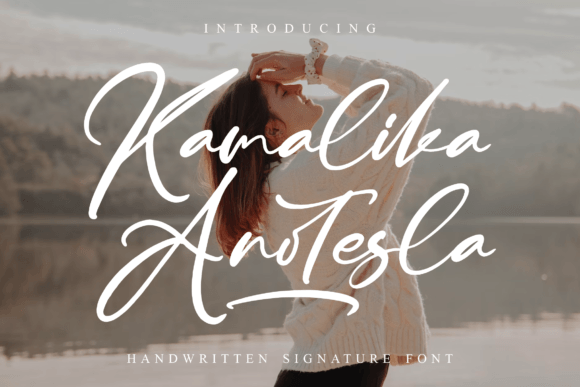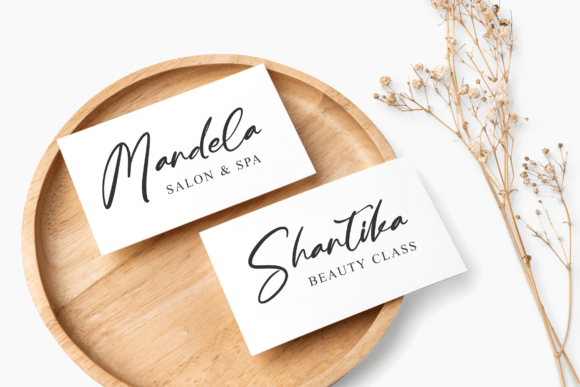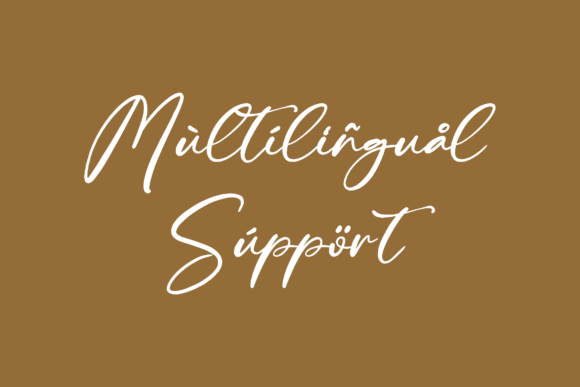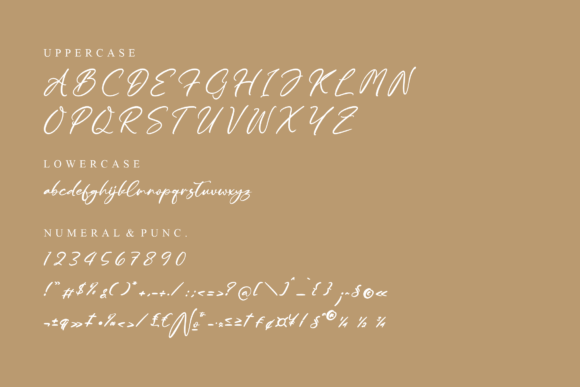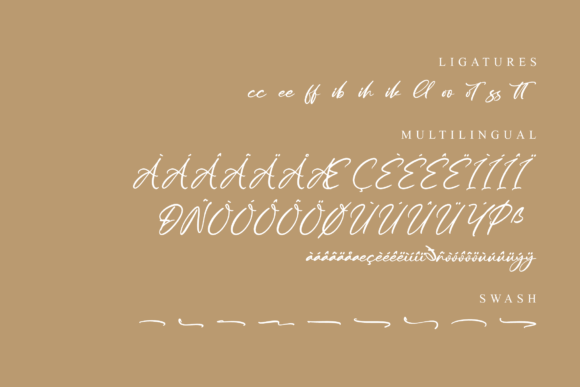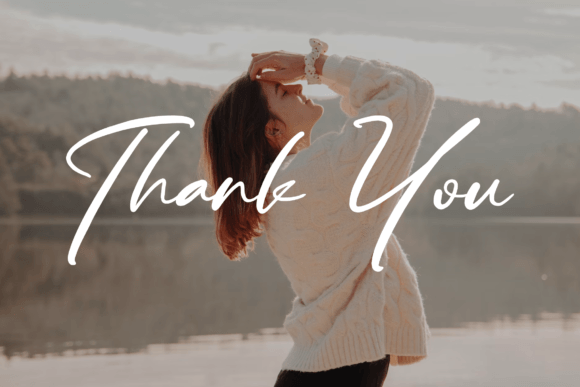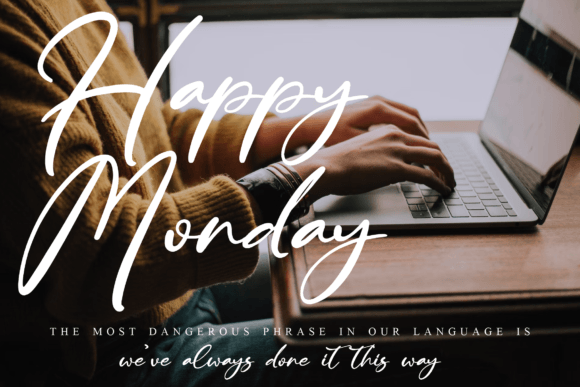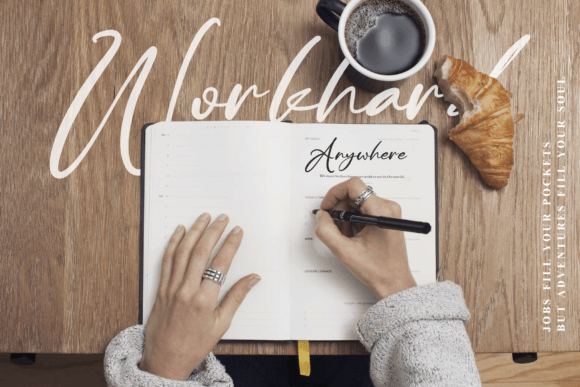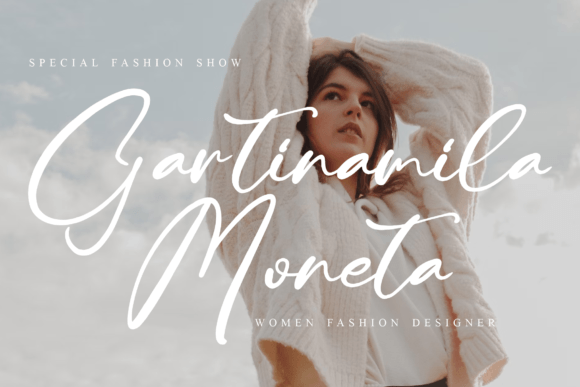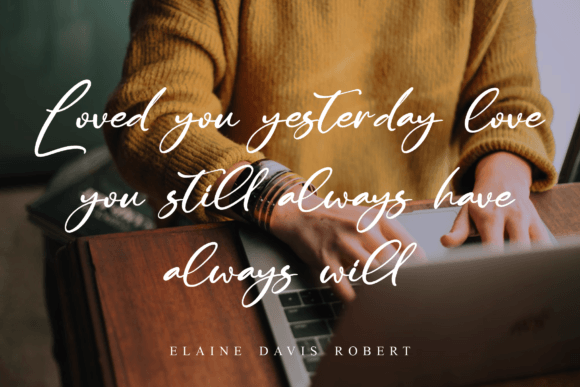
Kamalika Anotesla Font
About Kamalika Anotesla Font
Kamalika Anotesla Font download is a beautifully designed handwritten signature font that adds a graceful and personal touch to your design work. With its fluid strokes and sophisticated character, it’s ideal for creatives seeking a refined yet approachable aesthetic.
Whether you’re designing a logo or creating branded merchandise, this font brings elegance and originality to every piece.
A Stylish Signature for Every Project
Kamalika Anotesla combines a modern script flow with a classic handwritten signature look. The result is a versatile typeface that adapts to both minimalist and decorative projects with ease.
Perfect for:
• Branding and logo design
• Wedding and event invitations
• Product packaging and labels
• Fashion lookbooks and stationery
• Mugs, t-shirts, and tote bags
• Book covers and photography watermarks
• Social media content and quotes
Elegant and Easy to Use
Font highlights:
• Handwritten signature style
• Balanced, fluid strokes
• Perfect for print and digital use
• Supports multilingual characters
Make Your Designs Shine
From romantic stationery to bold branding, Kamalika Anotesla Font delivers a signature style that feels luxurious and personal. Let your creative ideas flow with this elegant handwritten font.